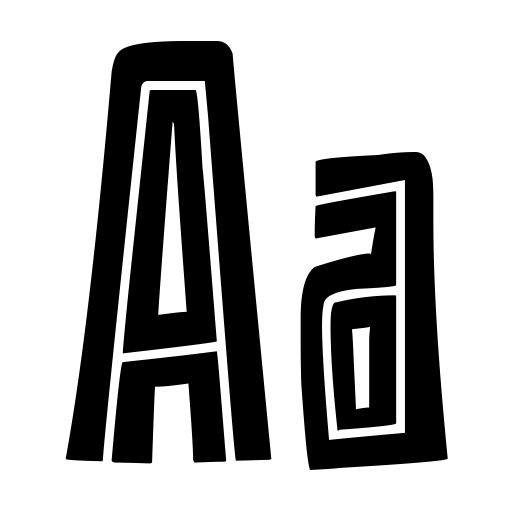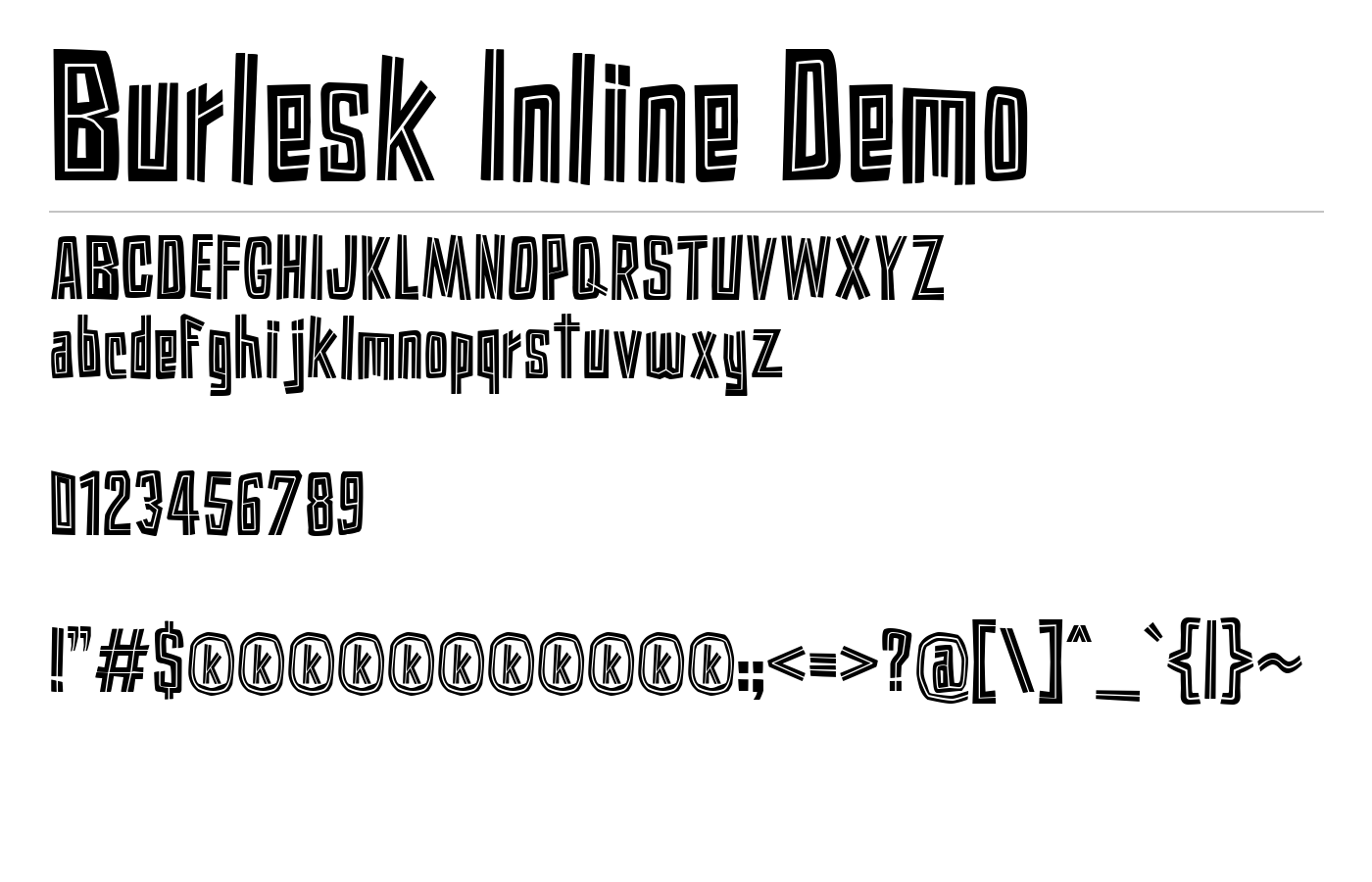
Burlesk Inline is a quirky, condensed sans serif font with a playful, hand-drawn feel created by its irregular shapes and inline detailing. Its narrow letterforms and tall x-height give it a distinct, energetic personality, making it ideal for eye-catching headlines, posters, and creative branding where a fun, informal vibe is desired. This font works best in designs that want to stand out with a unique and lively character.
Burlesk Font
About Burlesk Font